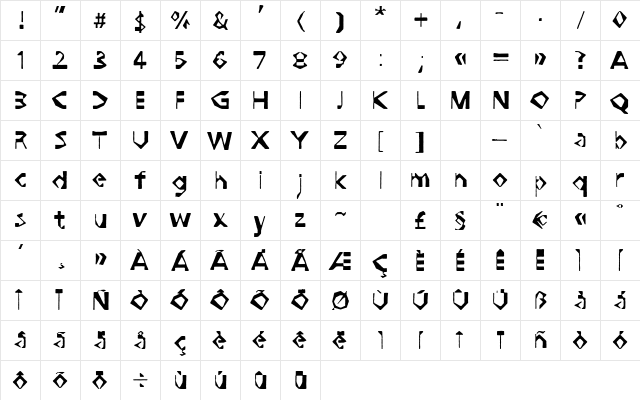
Assuri Regular
Design Context for Assuri Typeface
Assuri is a composed and adaptable typeface that performs quietly and consistently across a wide range of design contexts.